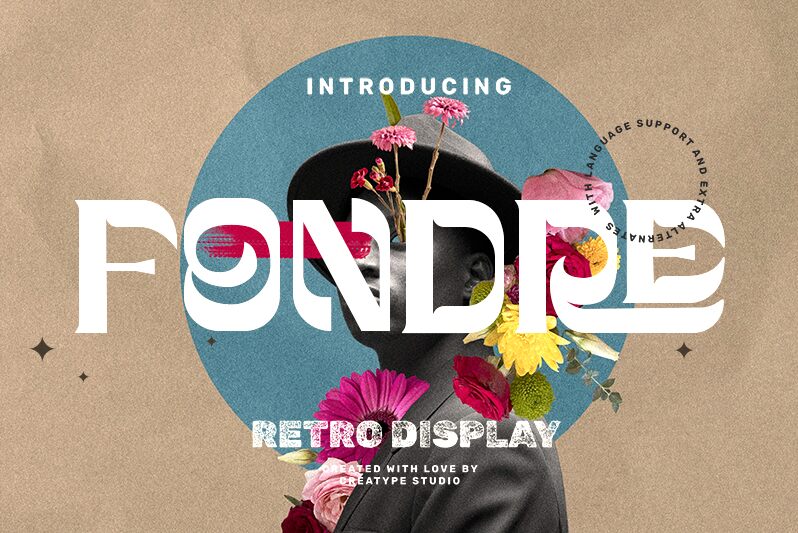
Fondre
Fondre font by Creatype Studio is a bold retro display font with expanded letters and unconventional aesthetic. Its visual impact goes unchallenged thanks to its geometric letterforms which are innovative and absolutely unique. It combines futuristic elements with the vibes of the 70s and 80s.
This free contemporary typeface has great potential in posters, album covers, branding packages, magazine & newspaper headlines, product labels, ads, and much more.